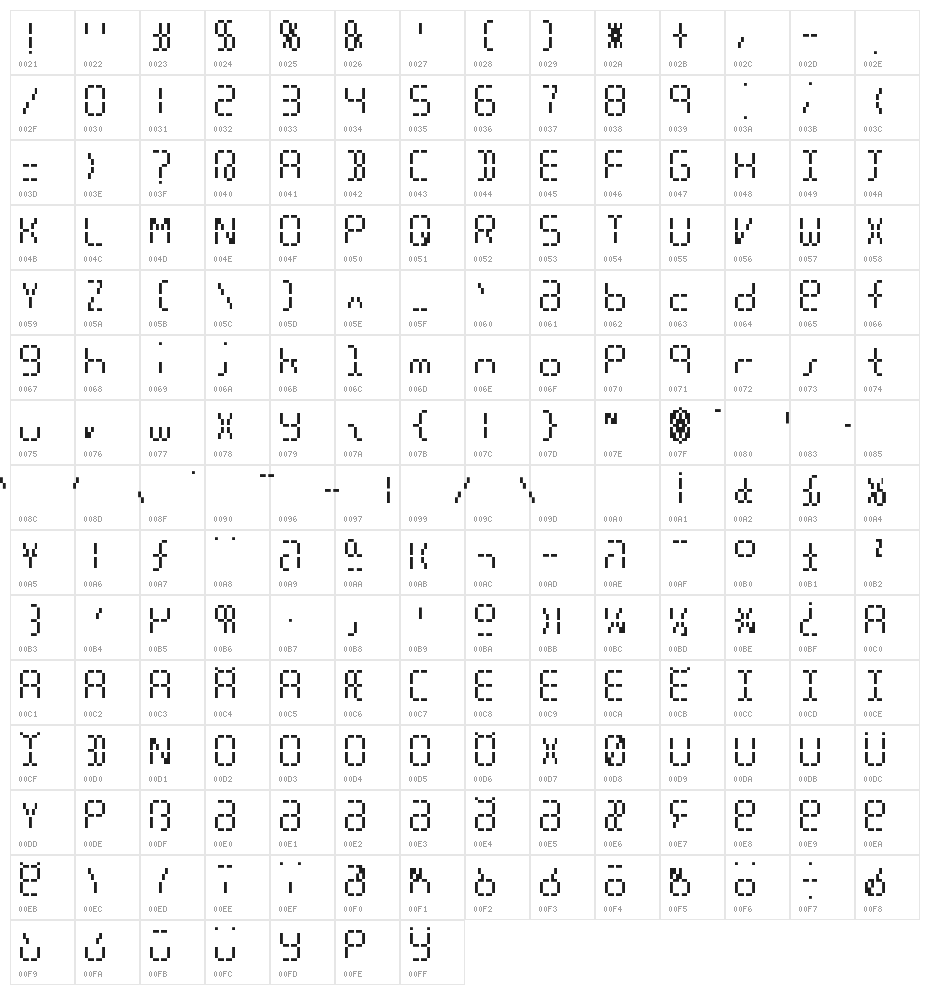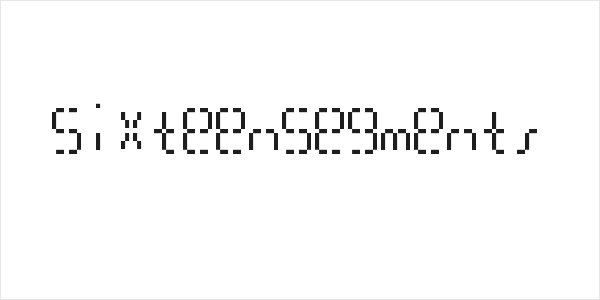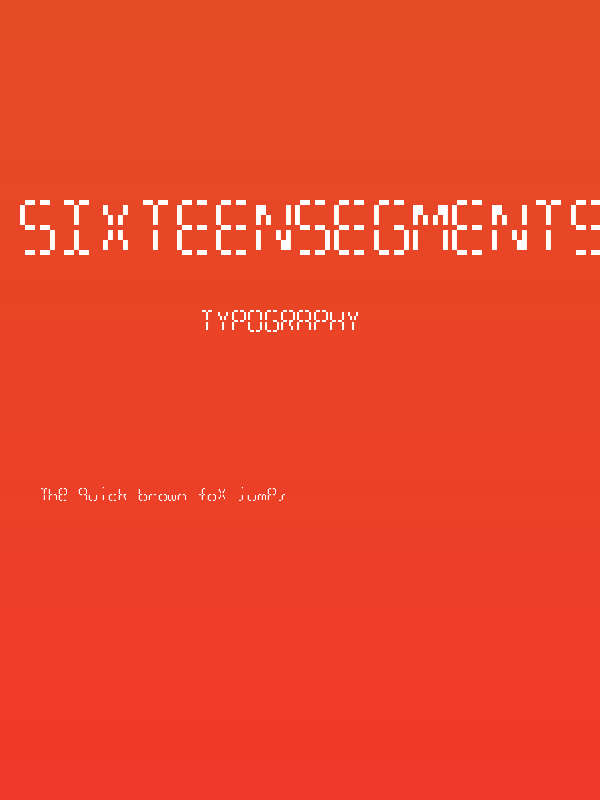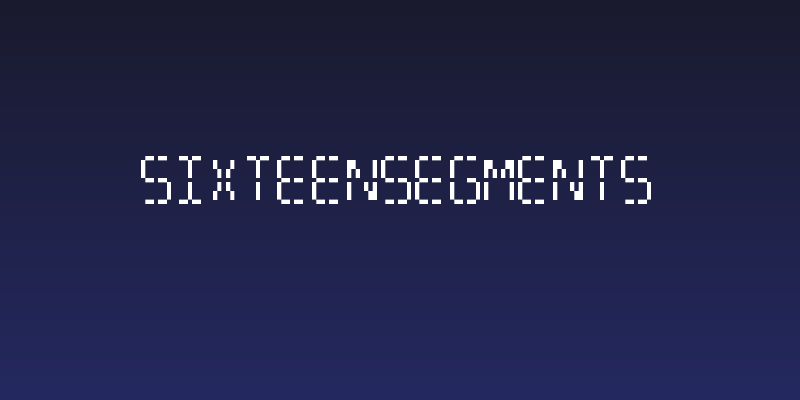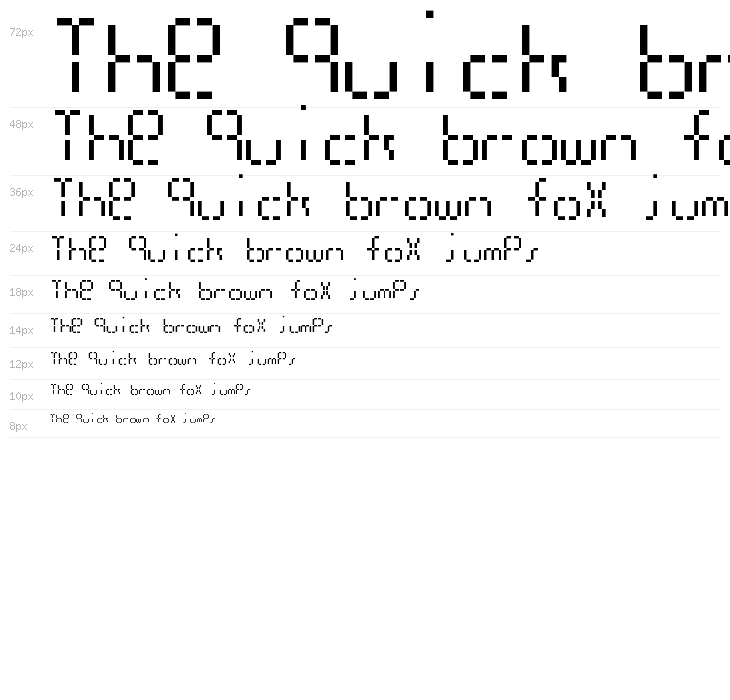
SixteenSegments Font
SixteenSegments Description
This font is designed with a digital, segmented style reminiscent of old LED displays. Each character is composed of a series of straight lines and angles, creating a geometric and technical appearance. The font is highly legible and structured, with uniform character heights and widths, making it ideal for digital displays or retro-themed projects. The characters are formed using a grid-like pattern, which gives them a pixelated look, adding to the vintage digital aesthetic. This style is particularly effective for conveying a sense of technology or nostalgia, as it evokes the look of early digital clocks and calculators.
| Use Case | Headlines, Logos, Digital displays |
| Proposed Projects | Ideal for digital displays, retro-themed designs, tech-related branding, or any project requiring a vintage digital look. |